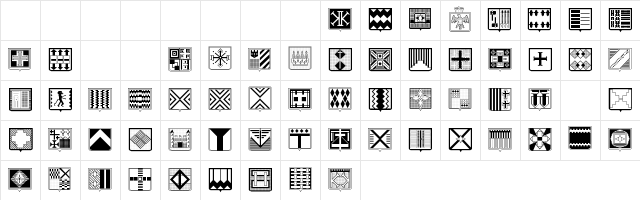
Fantasy Shields Two Regular Free Font
Fantasy Shields Two Regular
Designer: Scretch
Design Context for Fantasy Shields Two
Fantasy Shields Two is a composed and adaptable typeface that performs quietly and consistently across a wide range of design contexts.